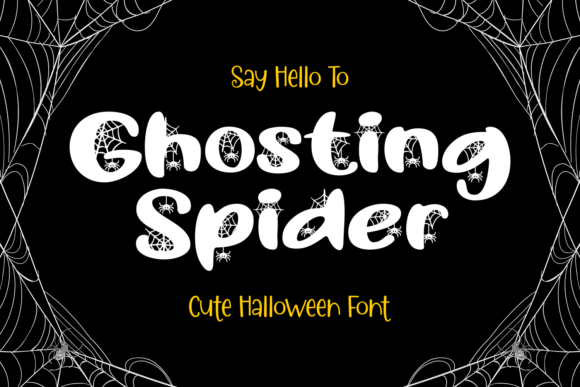
Getting Ready for a Spooky Season
As the leaves start to fall and the nights grow darker, many of us begin to feel a familiar thrill – Halloween is just around the corner! For designers, this means it’s time to get creative with spooky projects that will cast a spell on our audience. Whether you’re working on a haunted house invitation, a creepy game logo, or a spine-tingling movie title, the right font can make all the difference.
That’s where the Ghosting Spider Font comes in – a spooky and fun decorative font that’s perfect for adding a touch of macabre magic to your designs. This versatile font is not just for Halloween, but can be used year-round to add a touch of whimsy and wonder to your projects. With its unique, hand-drawn style, the Ghosting Spider Font is a valuable tool for designers looking to add some extra flair to their work.
Ghosting Spider Font Key Features
- Font Family: Ghosting Spider, a unique and mysterious font designed to evoke a sense of eeriness and intrigue.
- Unique Characteristics: Features a distinctive ghostly texture and subtle spider web patterns, adding an air of mystery and sophistication to any design.
Ghosting Spider Font Review
First off, I want to say that I was excited to dive into the Ghosting Spider Font. The designer’s unique approach to combining script and sans-serif elements really caught my eye, and I was eager to see if it would translate to a cohesive font.
- ✨ The Ghosting Spider Font has a great sense of movement and flow, which makes it perfect for projects that need a dynamic feel.
- ✨ The font is highly customizable, allowing you to adjust the spacing, weight, and even the ghosting effect to suit your design needs.
- ✨ The font is well-suited for digital applications, where the ghosting effect can add a nice touch of depth and visual interest.
Limitsations:
- ⚠️ The font can be difficult to read at small sizes, which may limit its use in print materials or situations where text needs to be dense.
- ⚠️ The ghosting effect can be overwhelming if not used judiciously, so designers will need to exercise some restraint when using this font in their designs.
- ⚠️ The font’s customization options can be a double-edged sword – while they offer a lot of flexibility, they also require a significant amount of time and effort to get right.
The Ghosting Spider Font is a unique and intriguing option for designers looking to add some visual interest to their projects. While it may not be suitable for every design task, it’s definitely worth considering for digital applications or projects where a dynamic feel is key.
The Ghosting Spider Font is ideal for creating eye-catching headlines, titles, and captions. It’s also great for adding a touch of elegance and sophistication to your designs. Some common use cases include:
- Graphic design and branding
- Marketing and advertising materials
To get the most out of the Ghosting Spider Font, experiment with different font sizes, colors, and styles. Use layer masks, blending modes, and layer styles to create a unique and eye-catching effect. Don’t be afraid to try new things and push the limits of what’s possible with this font.